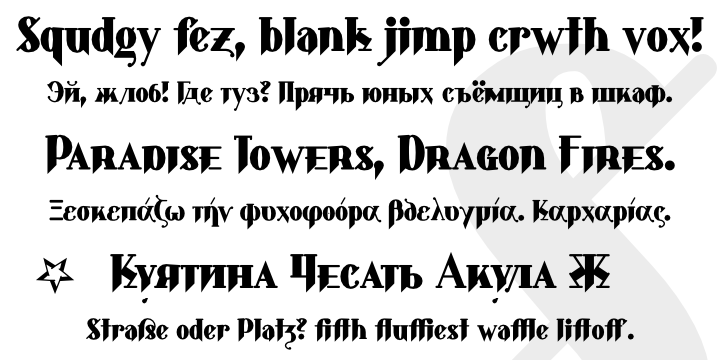
Haylurker combines blackletter elements at the bottom of the characters with a unique serif forming a solid line at the x-height.
Haylurker was originally designed, as Shark, for the masthead of The Fish Rap Live!, the alternative student newspaper at the University of California at Santa Cruz.
The K and Cyrillic Ж are reminiscent of the legs of a cricket or grasshopper; Blackletter is historically German. Therefore, the name is the direct translation of the German word for grass-hopper, Heuschrecke. More…
It includes the Greek and Cyrillic alphabets, small capitals, and a full set of accented characters.